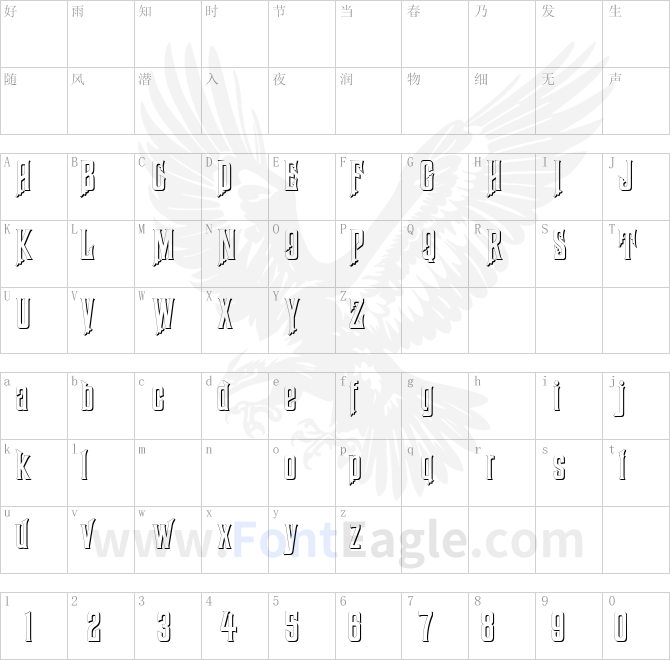
- Font name:Haunted Mouse Shadow Alt
- Font Subfamily ID:Haunted Mouse Shadow Alt: 2009
- Font Full Name:Haunted Mouse Shadow Alt
- Font Copyright:2009, 2010© Steve Ferrera. All Rights Reserved. Haunted Mouse is inspired by the Makart font seen at WDW. Any trademarks, logos and graphic elements contained within this font are the property of their respective owners. Not for sale.